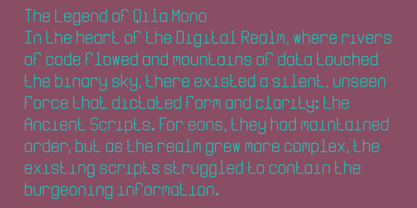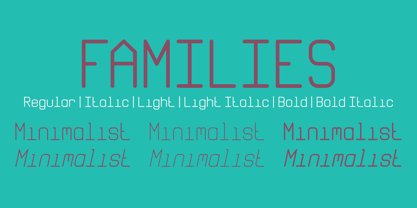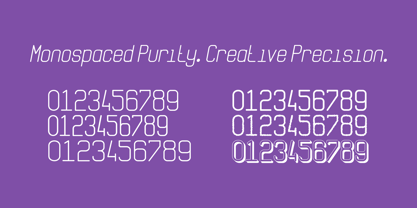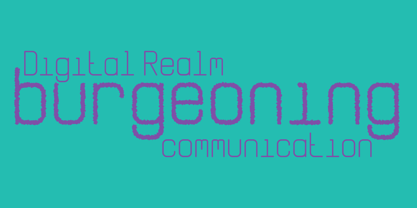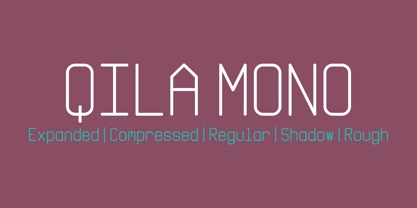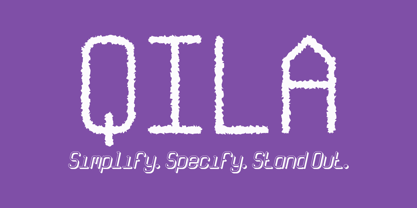
Qila Mono
by Kufic Studio
The Qila Mono Font Family was designed by Ahsan Ahmedzai and published by Kufic Studio. Qila Mono contains 30 styles and family package options.
Qila Mono: Precision Meets Personality in a Modern Monospaced Font Family Elevate your code, designs, and content with Qila Mono, the versatile monospaced font family crafted for ultimate clarity and aesthetic appeal. Born from a minimalist philosophy, Qila Mono offers unparalleled readability and consistent character spacing, making it the go-to choice for developers, typographers, and designers seeking both function and form. This comprehensive font system boasts a full spectrum of weights, including Regular, Italic, Bold, Bold Italic, Light, and Light Italic, ensuring the perfect voice for every project. Beyond its core families, Qila Mono unlocks creative possibilities with unique variants like the expansive Expanded, the space-saving Compressed, the intriguing Shadow, and the distinctively textured Rough. Optimized for both print and digital environments, Qila Mono delivers a professional, modern look that enhances user experience and distinguishes your brand. Discover the power of precise typography with Qila Mono – where every character counts.